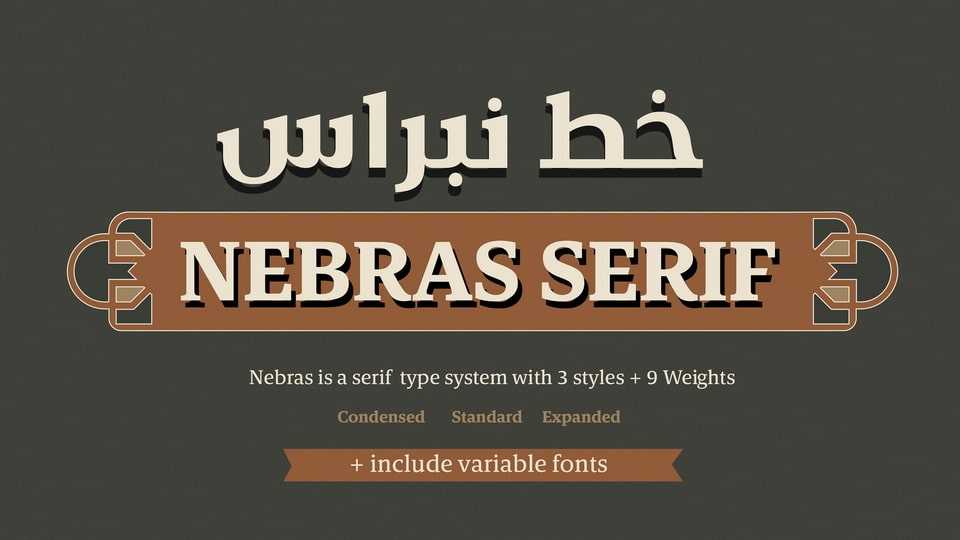
Download Nebras font, a contemporary serif typeface that is curved and round, but also straight and edgy with its alternates. Use Nabras font in packaging designs, branding, advertising, and any media platform where you want something contrasted, sharp yet elegant.
Designer: Baianat Type Design